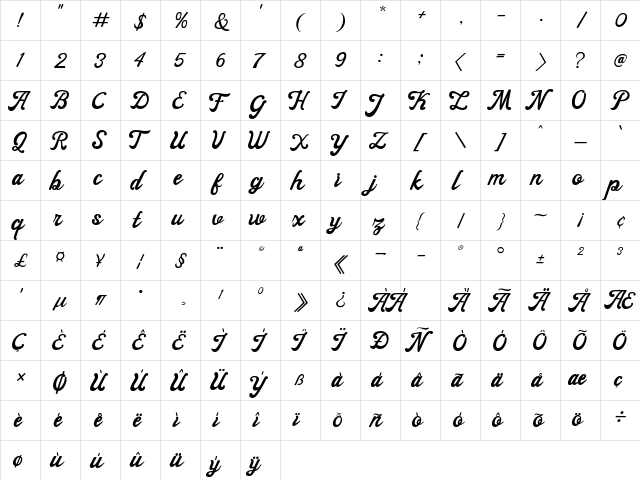
ayangduit Regular
Design Context for ayangduit Typeface
ayangduit is a composed and adaptable typeface that performs quietly and consistently across a wide range of design contexts.